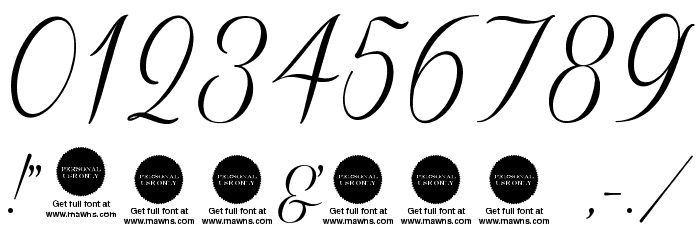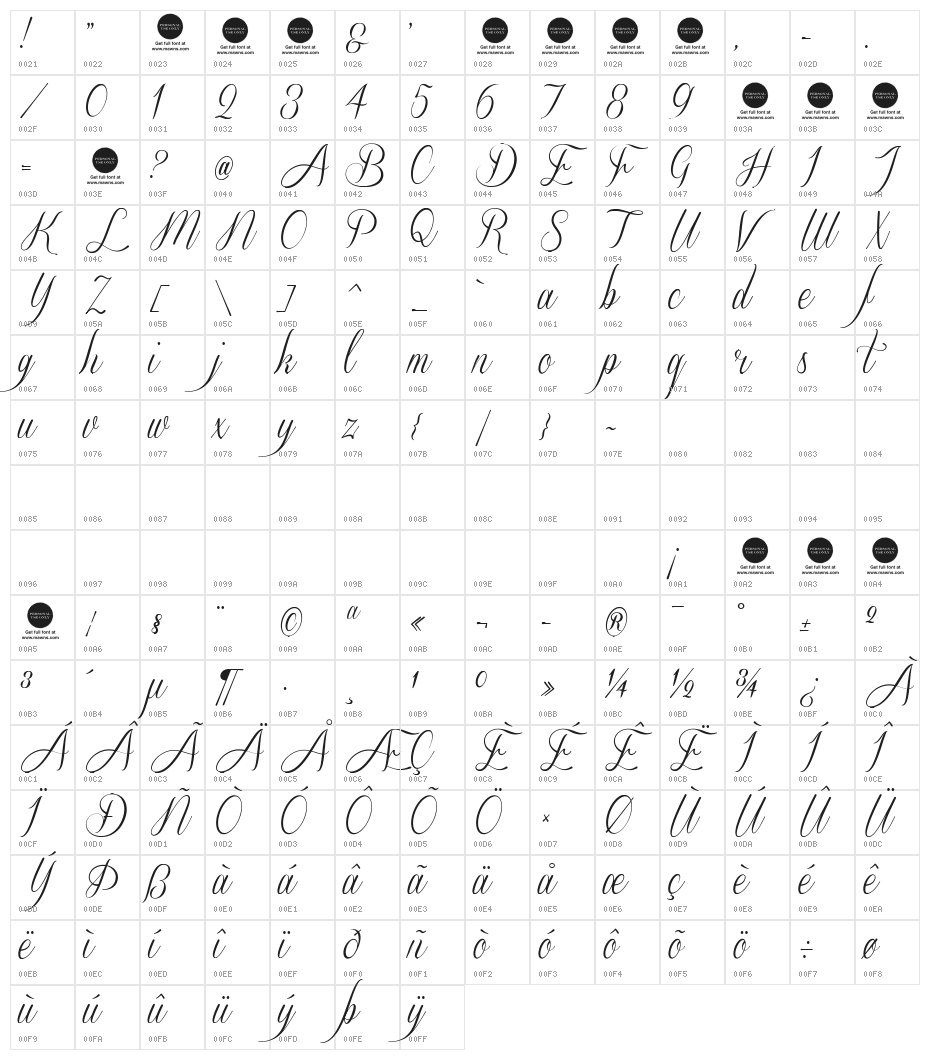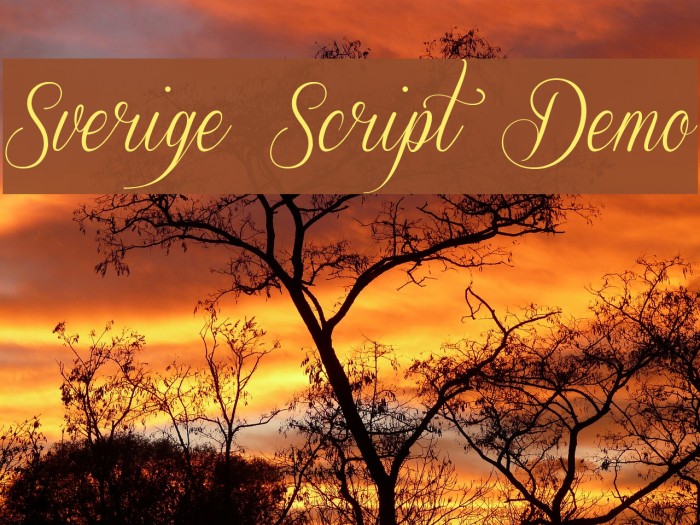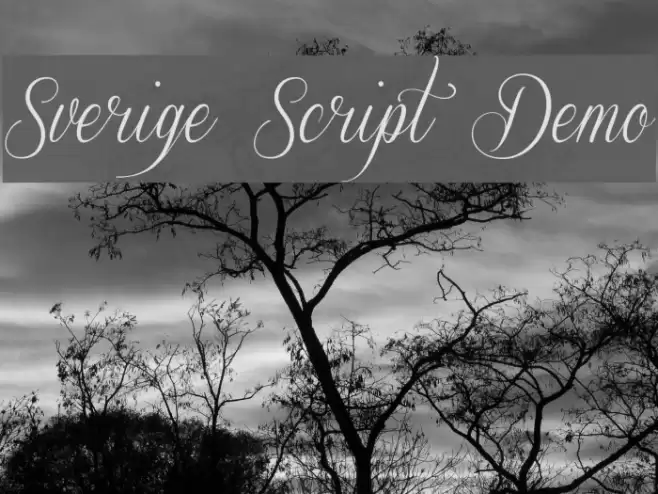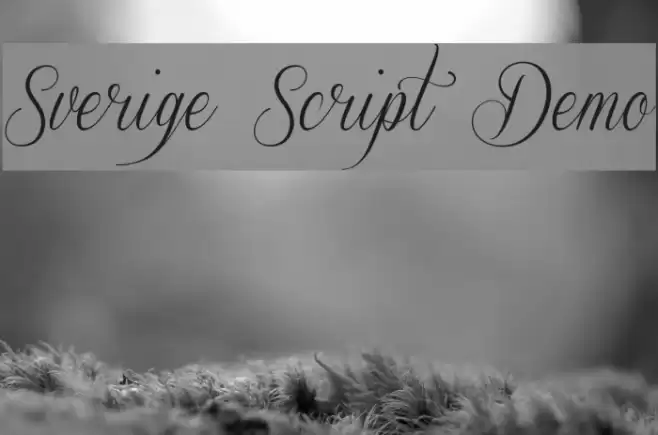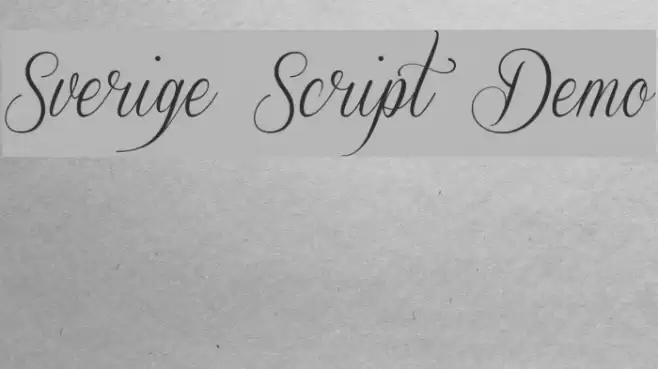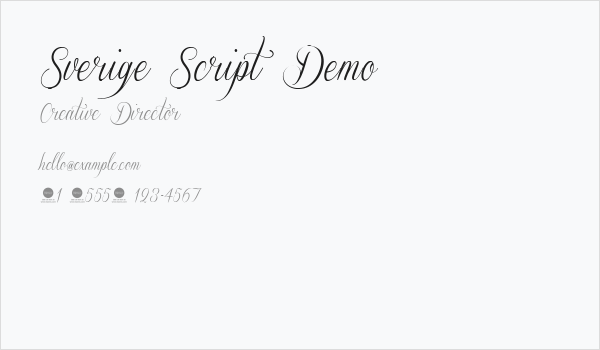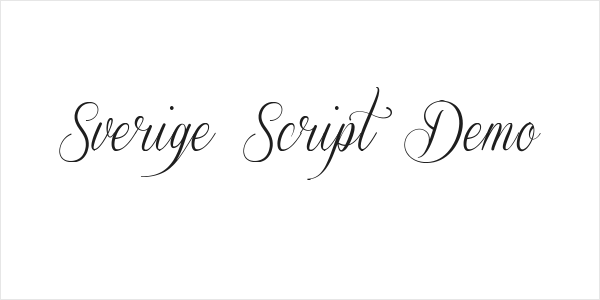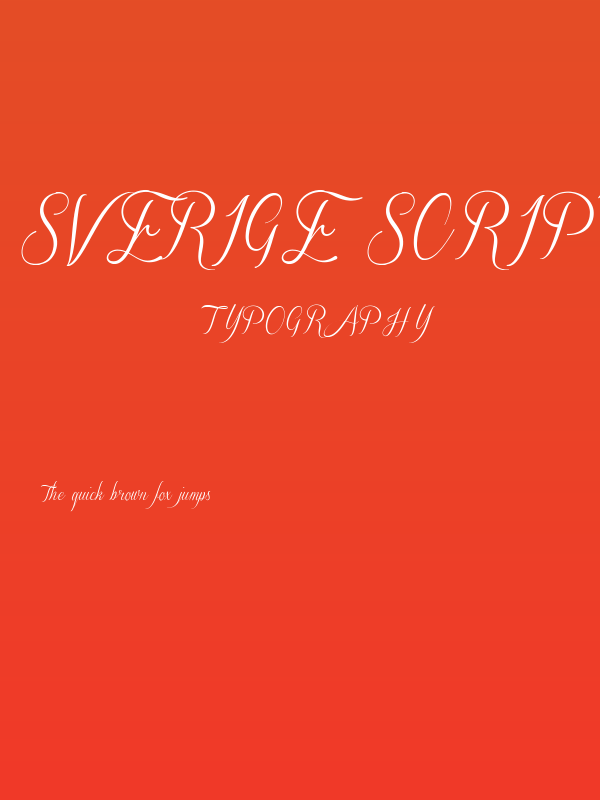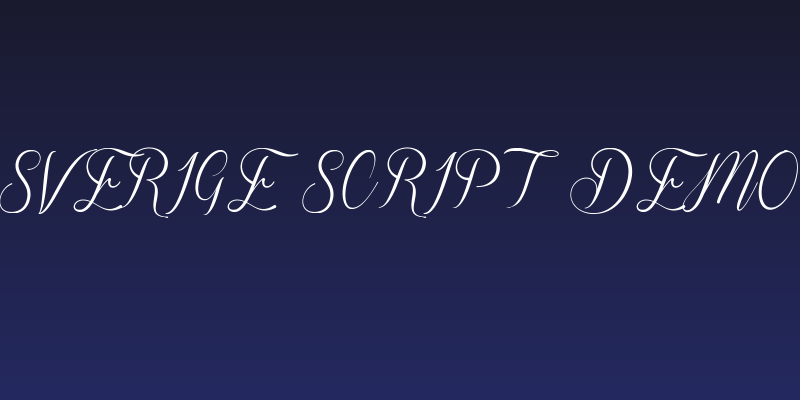
Sverige Script Demo Font
Sverige Script Demo Description
This elegant script font features flowing, cursive letters with a classic and sophisticated style. The uppercase characters are gracefully designed with sweeping curves and delicate strokes, while the lowercase letters maintain a consistent fluidity, enhancing readability. The numerals are stylishly crafted to match the overall aesthetic, and the special characters blend seamlessly with the rest of the set. The font's high contrast between thick and thin strokes adds to its refined appearance, making it suitable for formal and decorative purposes.